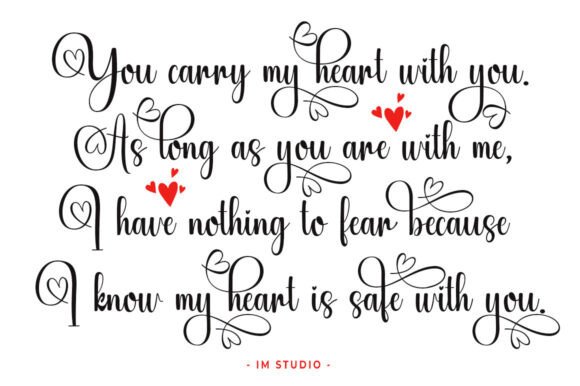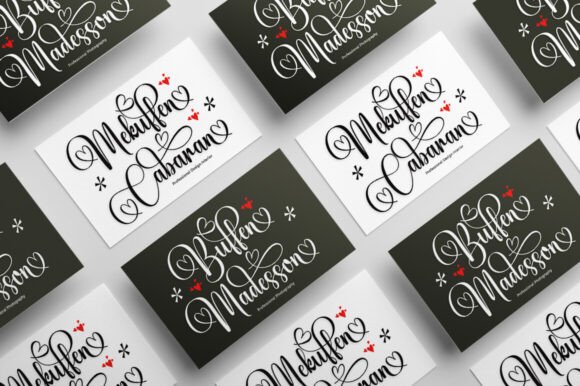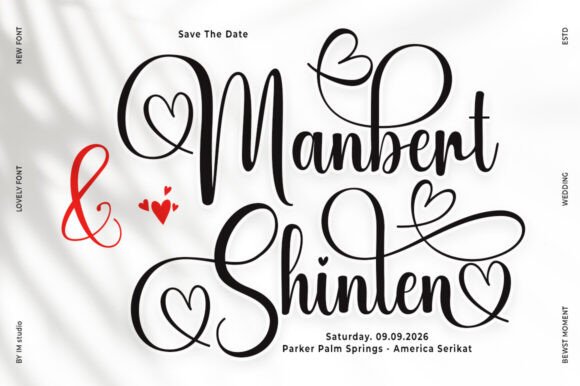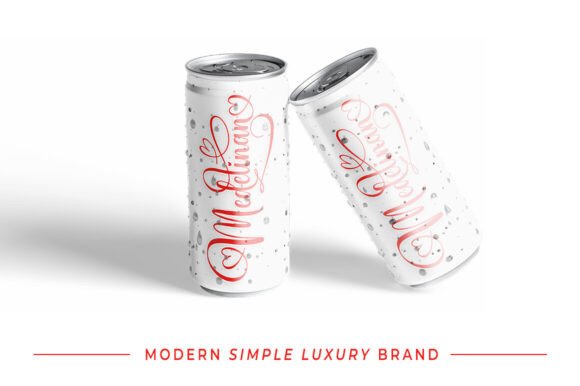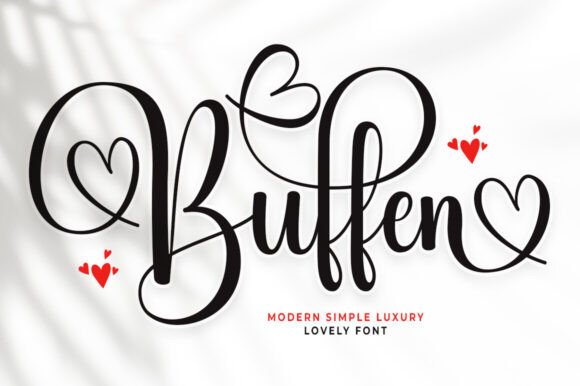
Introducing Buffen Font: Elevate Your Designs with Elegance and Sophistication
In the world of typography, a font can make or break a design. For designers and crafters looking to add a touch of luxury and friendliness to their projects, Buffen Script is an excellent choice. This elegant handwritten font boasts a stunning modern touch, making it perfect for a wide range of design purposes.
What is Buffen Font?
Buffen Script is a beautifully crafted handwritten font that exudes elegance and sophistication. Designed with fine details and artistic curves, this font is sure to impress. Its unique blend of classic and modern elements makes it an excellent addition to any design project.
Key Features of Buffen Font
- Elegant Handwritten Style: Buffen Script features a beautiful, flowing script that adds a touch of sophistication to any design.
- Modern Touch: The font’s modern twist makes it perfect for designers looking to create fresh and contemporary designs.
- Fine Details and Artistic Curves: The font’s intricate details and curves give it a luxurious feel, making it ideal for high-end designs.
- Luxurious yet Friendly Impression: Buffen Script strikes the perfect balance between luxury and approachability, making it suitable for a wide range of design applications.
Use Cases for Buffen Font
Buffen Script is an incredibly versatile font that can be used for various design purposes, including:
- Wedding Invitations: Add a touch of elegance and sophistication to your wedding invitations with Buffen Script.
- Logos and Branding: Create a luxurious brand identity with Buffen Script, perfect for high-end businesses and services.
- Greeting Cards: Make your greeting cards stand out with the beautiful, flowing script of Buffen Script.
- Creative Projects: Whether you’re working on a personal or professional project, Buffen Script is an excellent choice for adding a touch of elegance and sophistication.
Why Choose Buffen Font?
With so many fonts available, why choose Buffen Script? Here are just a few reasons:
- Unique and Versatile: Buffen Script is a one-of-a-kind font that can be used for a wide range of design applications.
- Elegant and Sophisticated: The font’s elegant and sophisticated style makes it perfect for designers looking to create high-end designs.
- Easy to Read: Despite its intricate details, Buffen Script is easy to read, making it perfect for body text and headings.
Tips for Using Buffen Font
To get the most out of Buffen Script, here are a few tips:
- Use it as a Headline Font: Buffen Script is perfect for headlines and titles, where its elegant and sophisticated style can shine.
- Pair it with a Sans-Serif Font: For body text, pair Buffen Script with a clean sans-serif font to create a beautiful contrast.
- Experiment with Colors and Textures: Don’t be afraid to experiment with different colors and textures to add depth and interest to your designs.
In conclusion, Buffen Script is an elegant handwritten font that is sure to elevate your designs. With its stunning modern touch, fine details, and artistic curves, this font is perfect for designers and crafters looking to add a touch of luxury and friendliness to their projects. Whether you’re working on a wedding invitation, logo, or creative project, Buffen Script is an excellent choice.